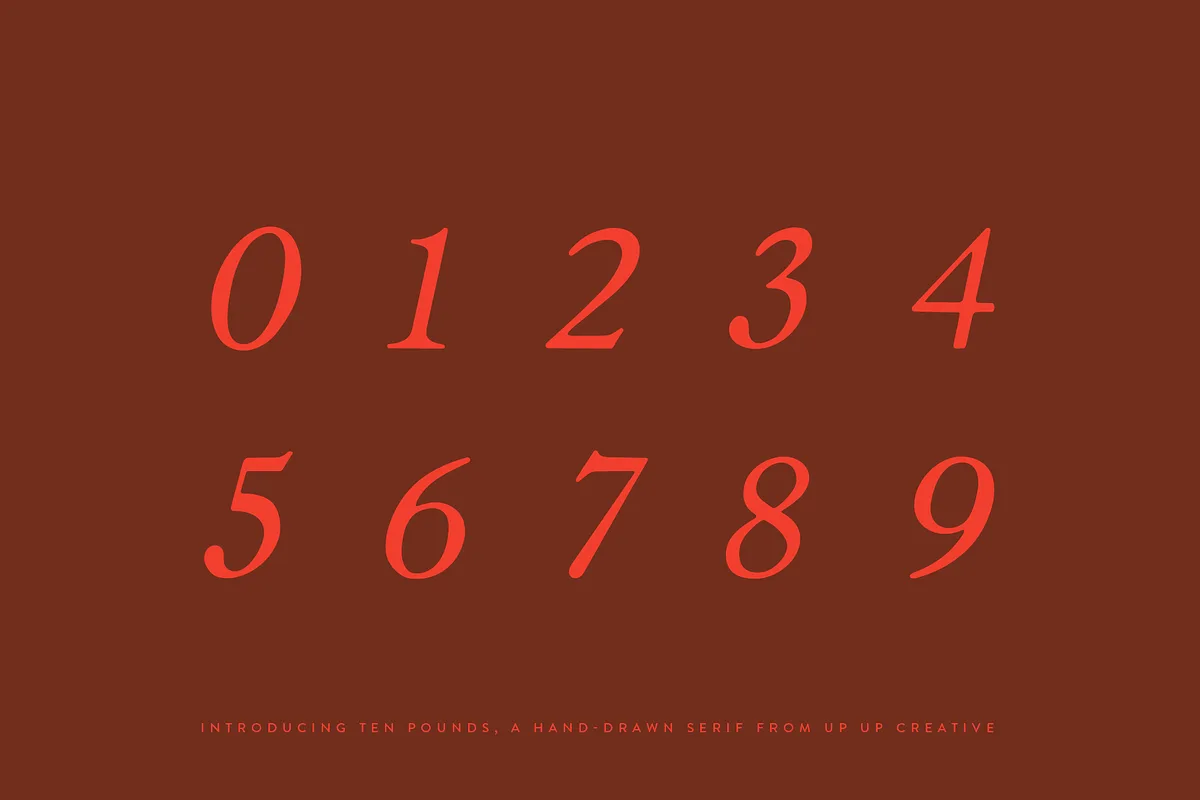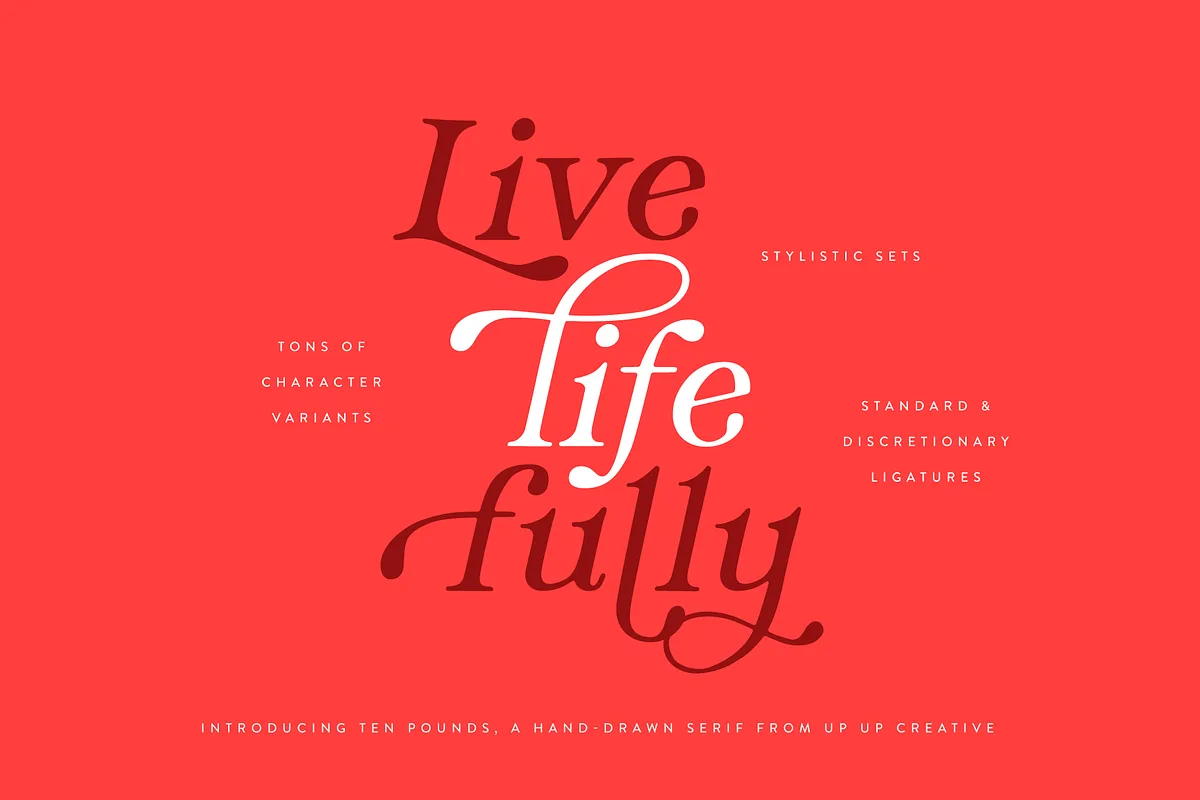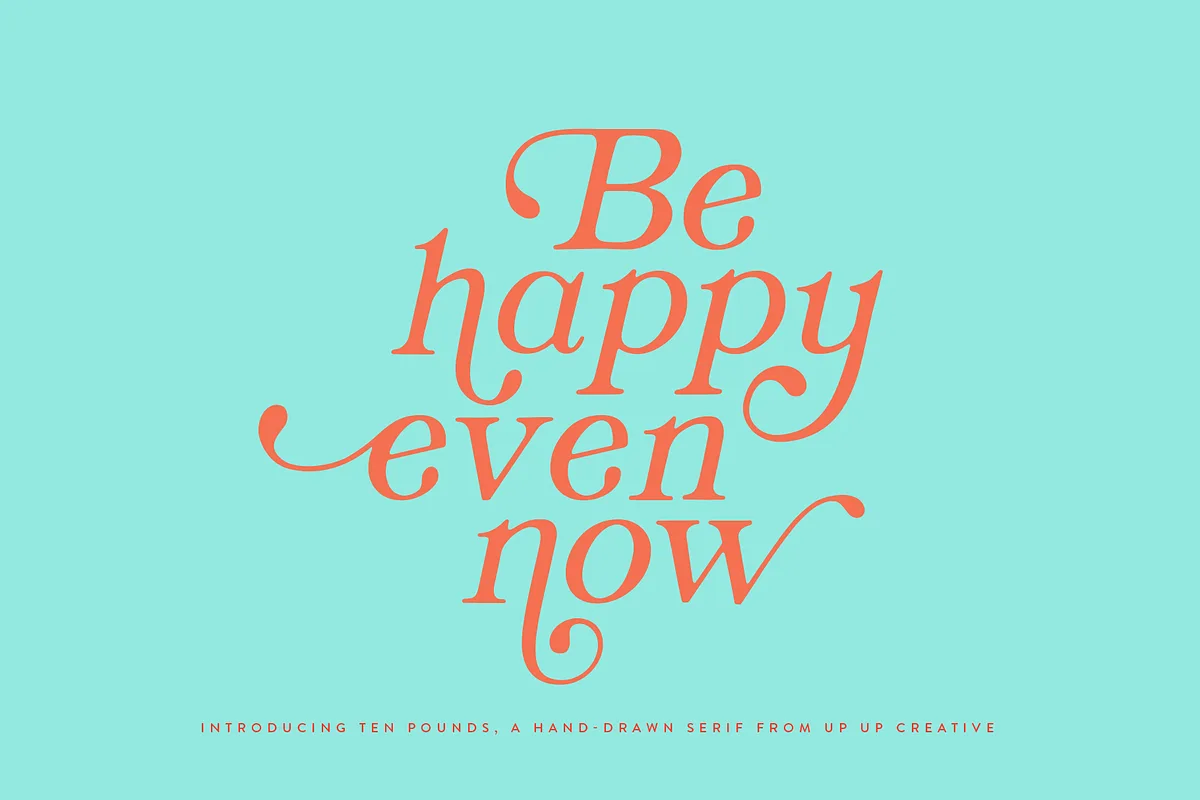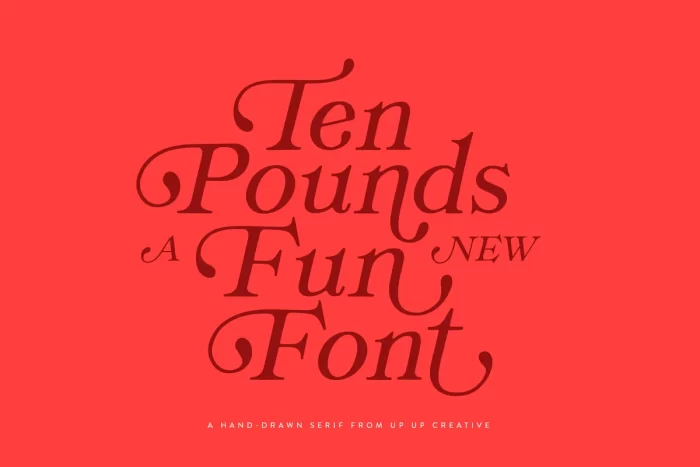
Introducing Ten Pounds, a fun, hand-drawn serif font with tons of character (and tons of characters!). Ten Pounds is perfect for branding, poster design, t-shirts, invitations, design for children, and editorial design. It comes with more than 1300 glyphs, including more than 100 ligatures. OpenType features include stylistic sets, character variants, initial and final forms, and multilingual support (including multiple currency symbols).